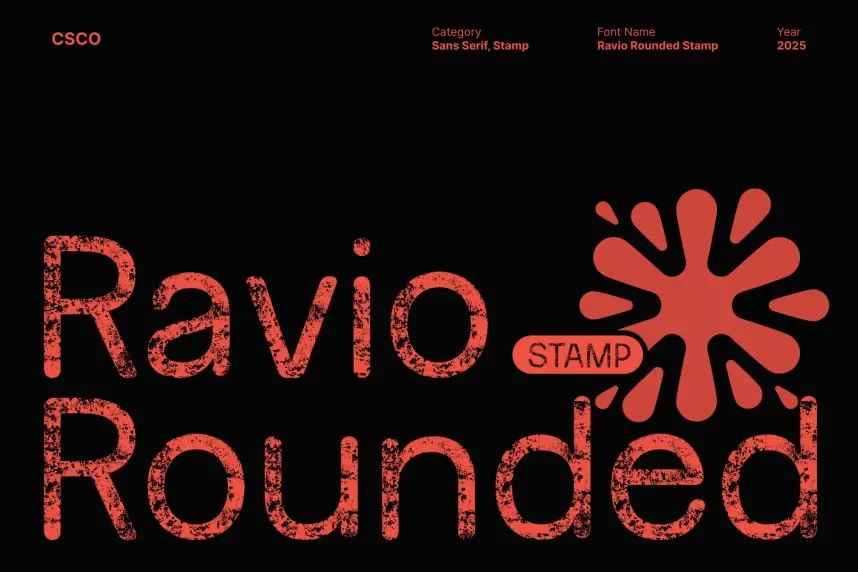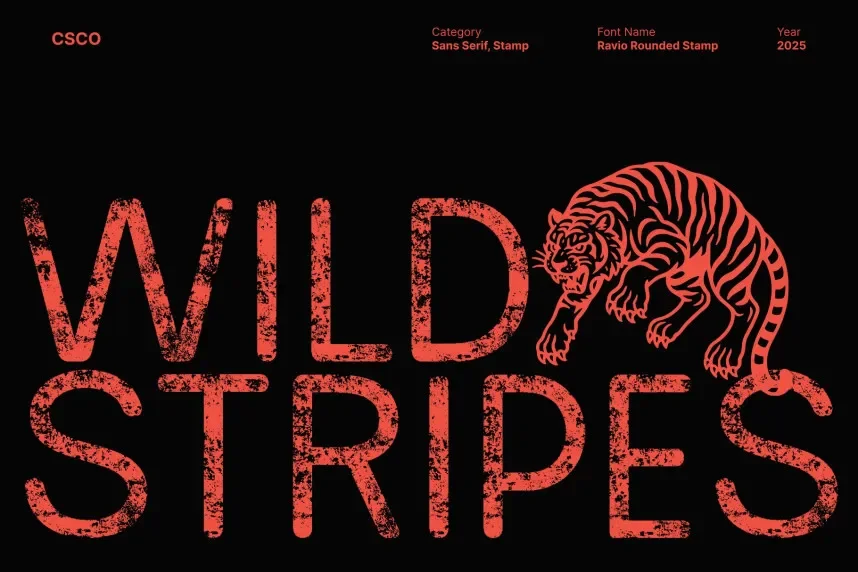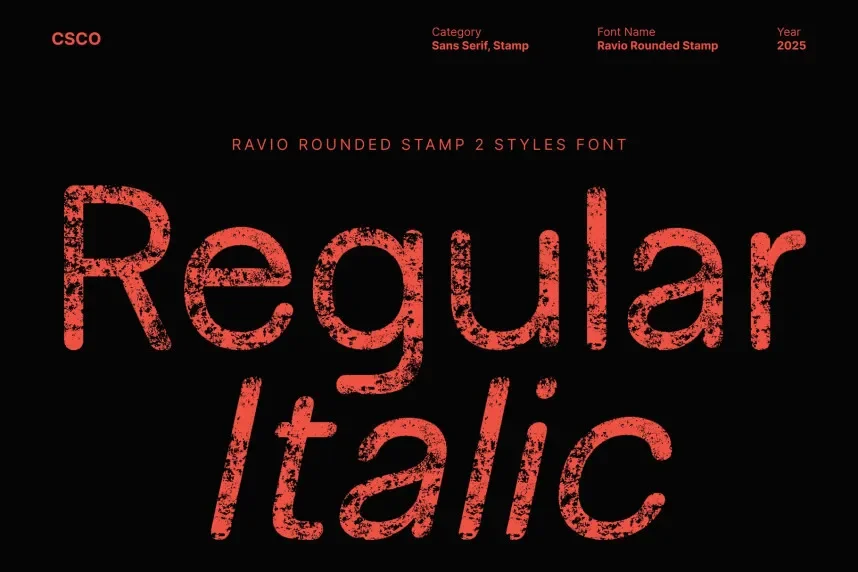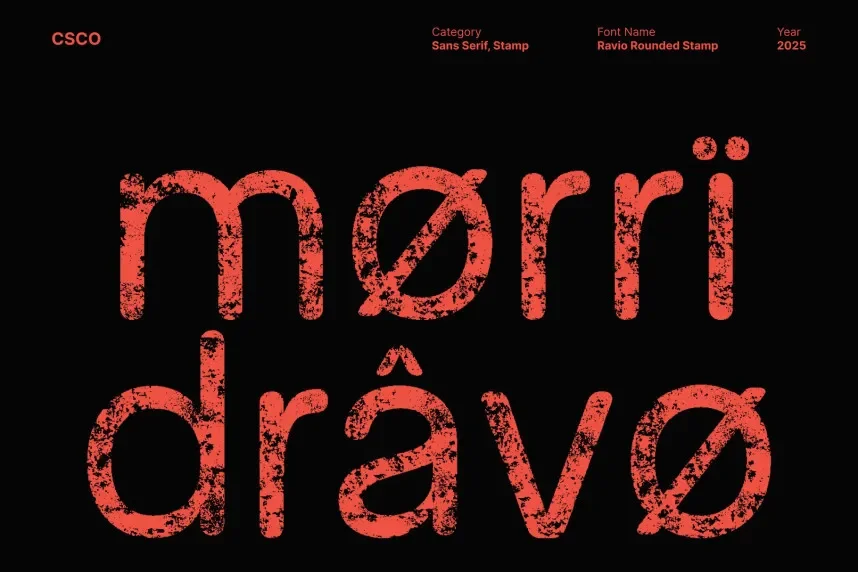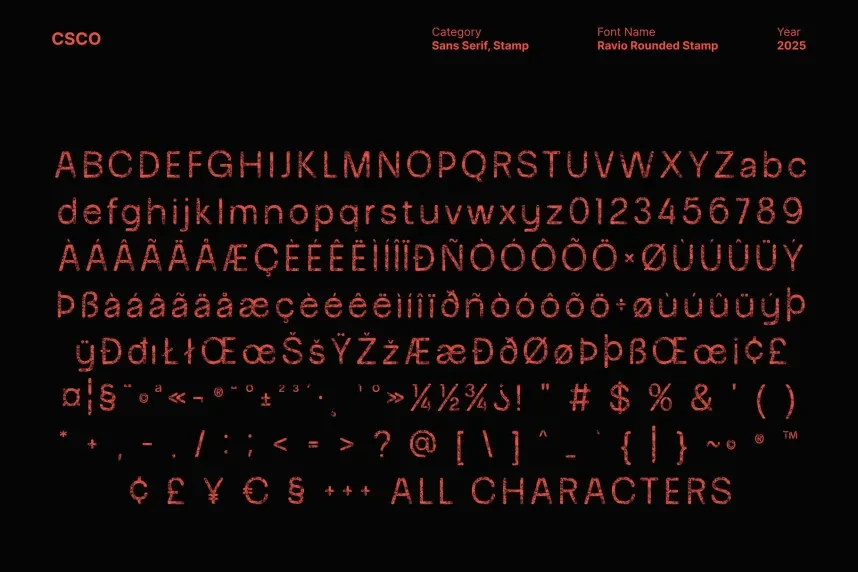
Ravio Rounded Stamp Font solves readability issues found in rough display fonts used for branding and packaging. Designers often need stamped lettering that feels handcrafted without sharp edges or heavy distortion.
Ravio Rounded Stamp Font is a rounded stamp display font with thick strokes and smooth curves. The font avoids excessive texture, allowing clear character recognition. Letter spacing remains stable, making it suitable for short headlines and logo text. The rounded shapes give it a friendly, controlled appearance.